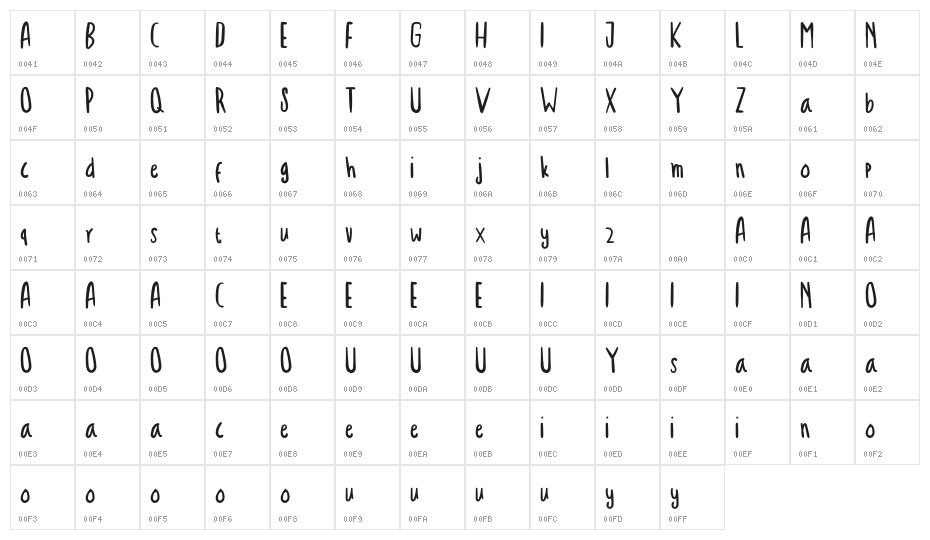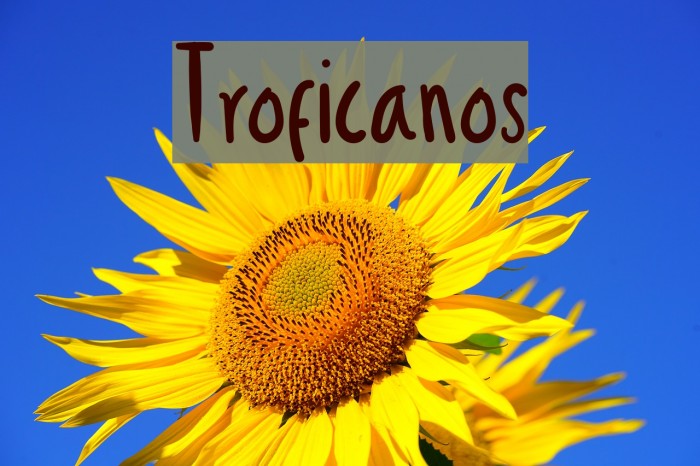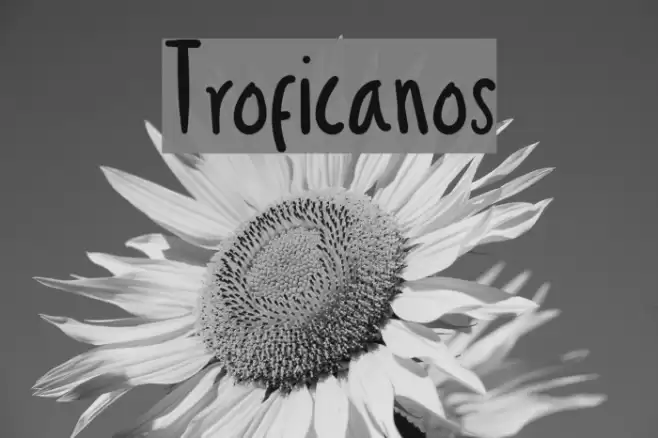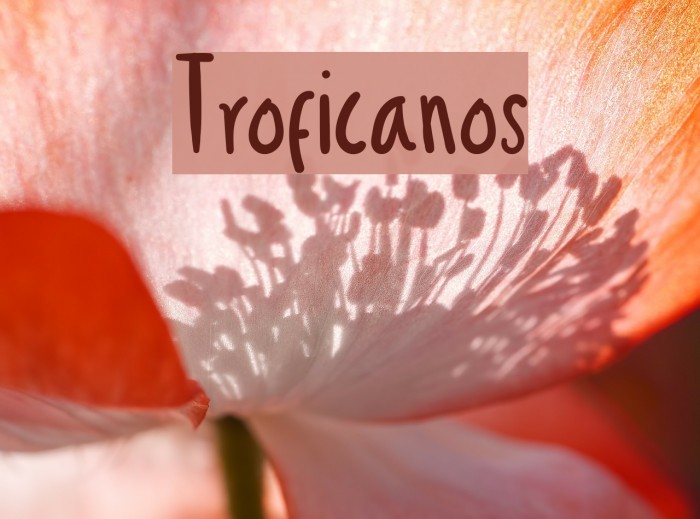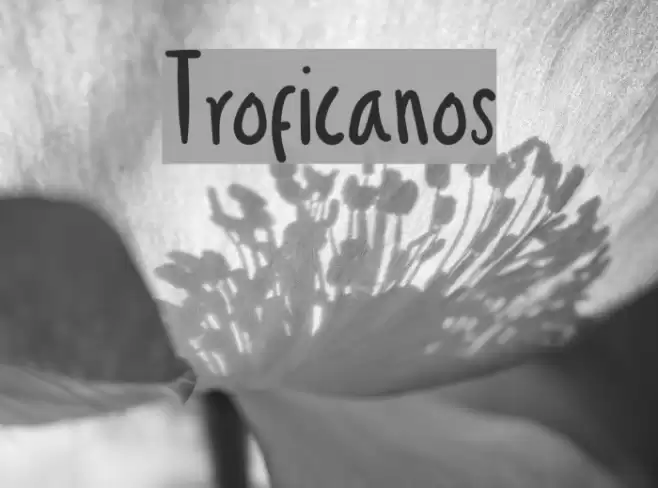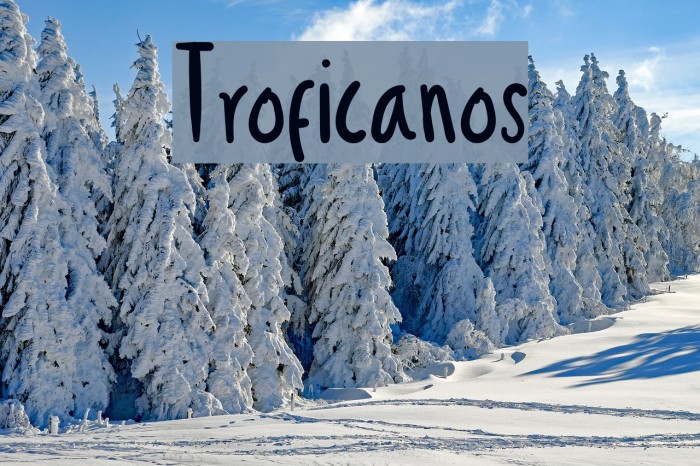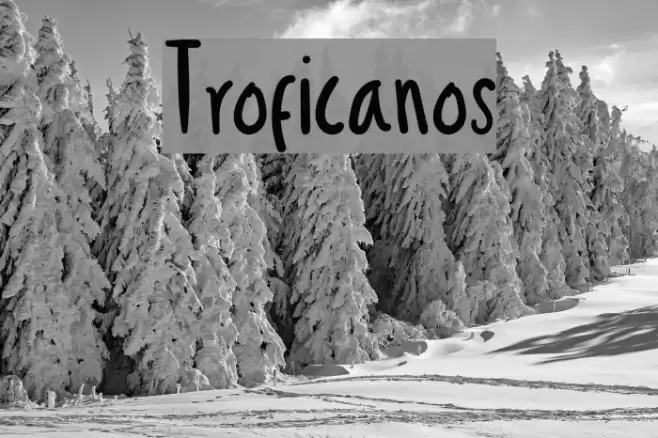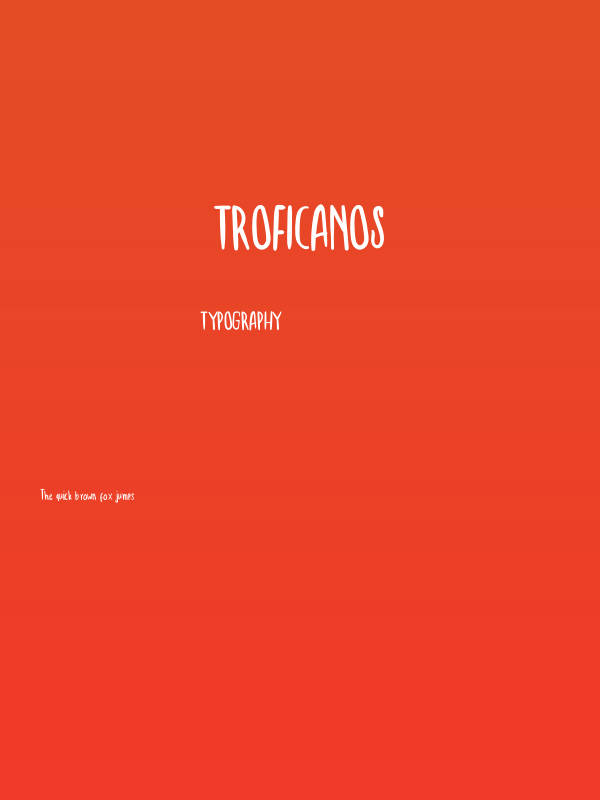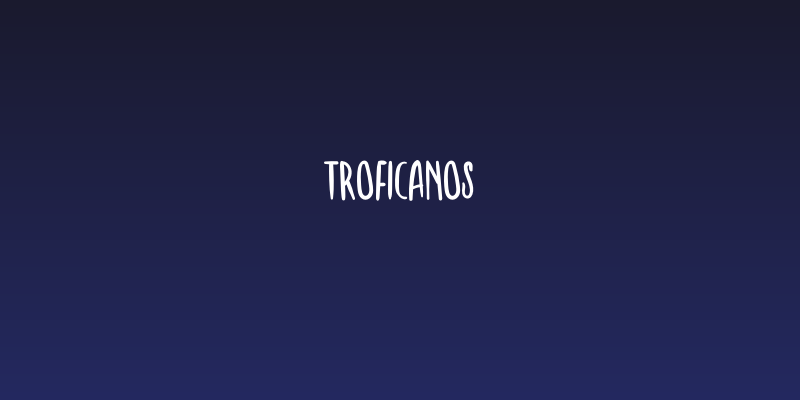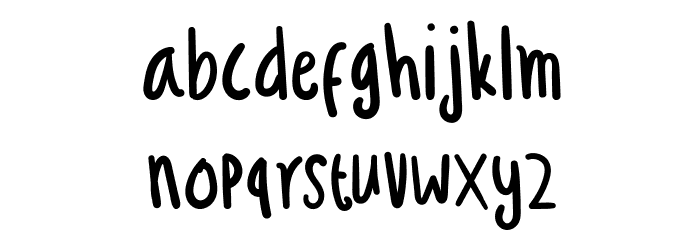
Troficanos Font
Troficanos Description
This font features a playful and casual handwritten style, characterized by its uneven strokes and organic flow. The letters have a slightly irregular baseline, giving it a whimsical and approachable feel. The uppercase and lowercase letters maintain a consistent style, with rounded edges and a friendly appearance. The numbers and special characters follow the same playful aesthetic, making it suitable for informal and creative projects. Its unique charm lies in its imperfect, hand-drawn look, which adds personality and warmth to any design.
Overall StyleCasual, Playful
Use CaseHeadlines, Informal text, Creative projects
Proposed ProjectsIdeal for greeting cards, children's books, playful branding, and creative social media graphics.